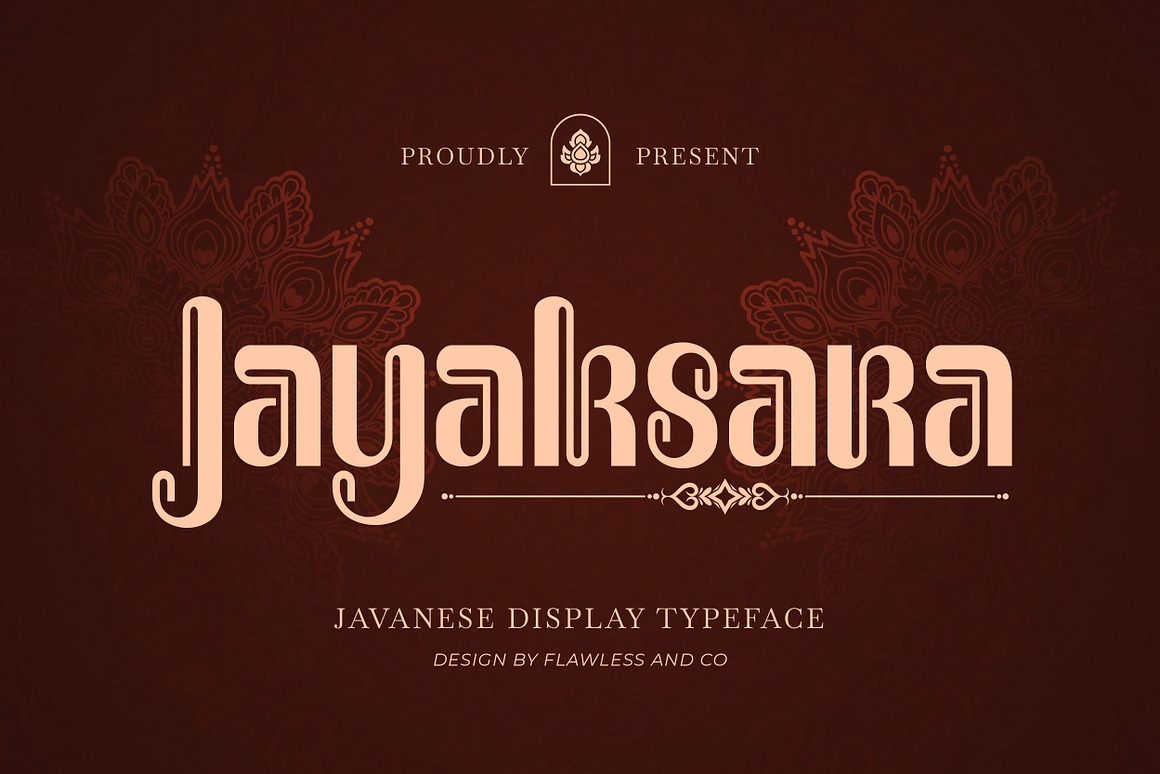
Jayaksara – Modern Diplay Font
Jayaksara – Modern Diplay Font is a versatile font designed to adapt beautifully across different design styles, offering dependable readability and balance. Jayaksara is a Javanese display font that brings the elegance of traditional script into a modern visual form. Inspired by the rich cultural heritage of Javanese lettering, Jayaksara features flowing curves, distinctive shapes, and decorative elements that create a unique and expressive typographic style. Crafted for display use, this font emphasizes artistic detail and cultural identity, making every word feel meaningful and visually captivating. Its ornamental character adds depth and authenticity, while the structured design keeps compositions balanced and appealing.